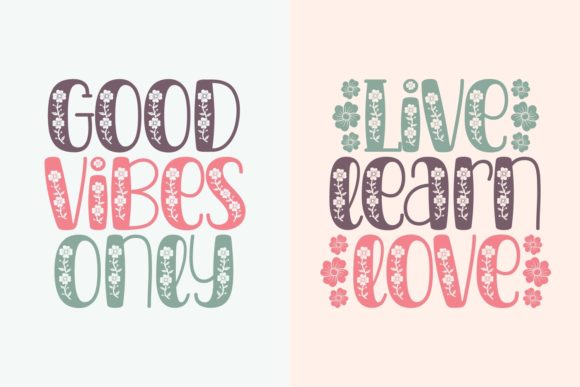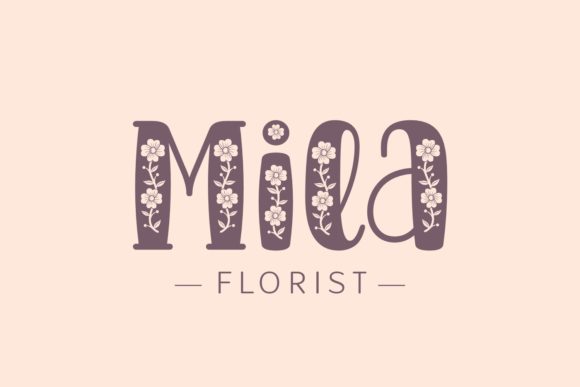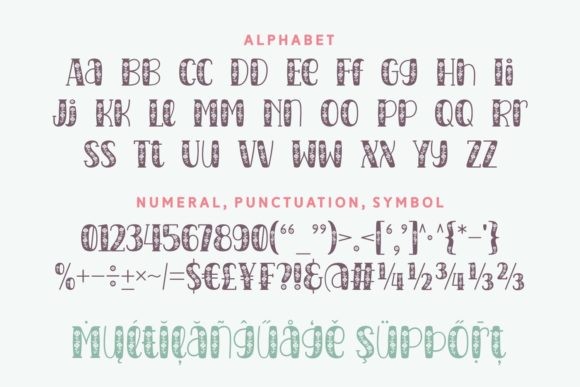
Introduction to Mixtura Flourish Font
The Mixtura Flourish font is the font to use for spring and summer projects.
Each character has a beautiful floral pattern, making it a beautiful, playful and elegant font to use for your creative projects .
Key Features of Mixtura Flourish Font